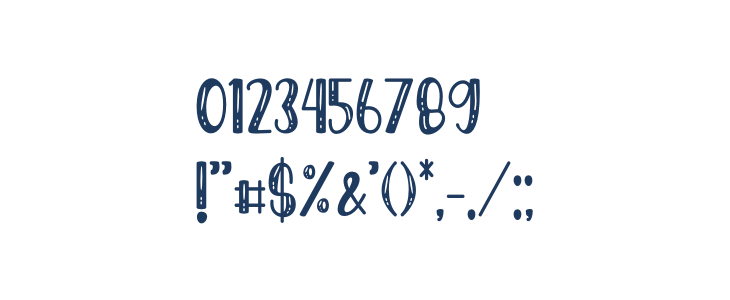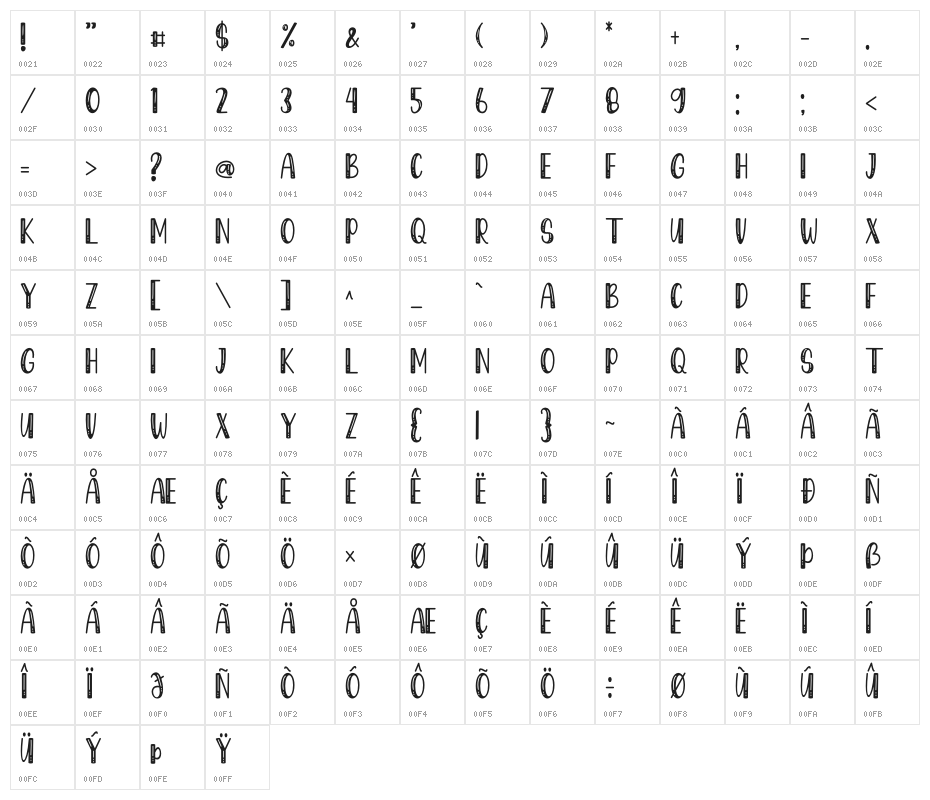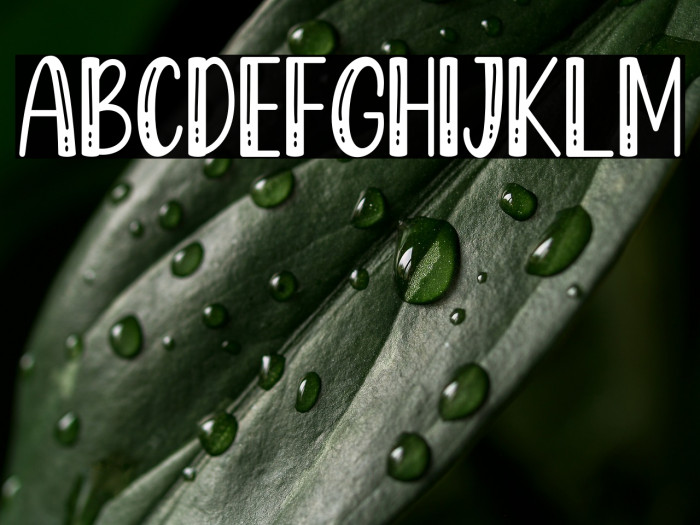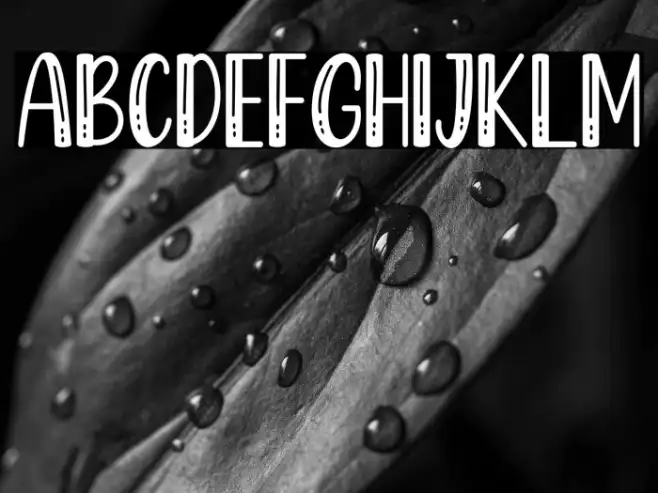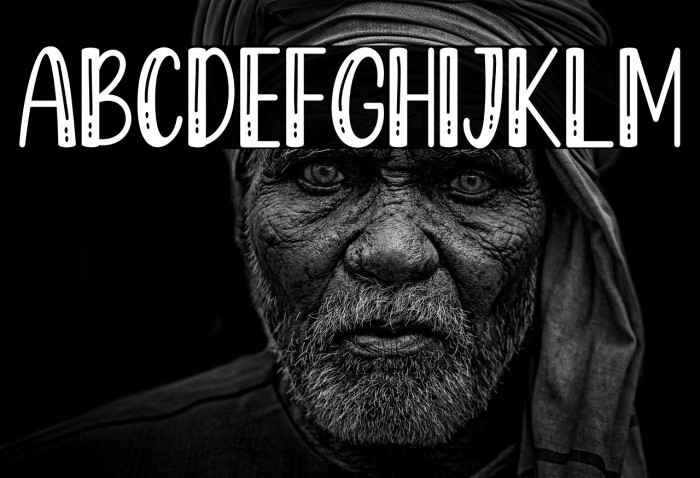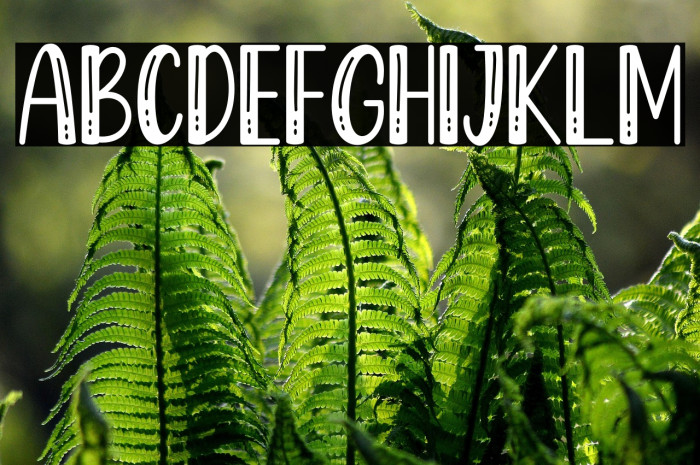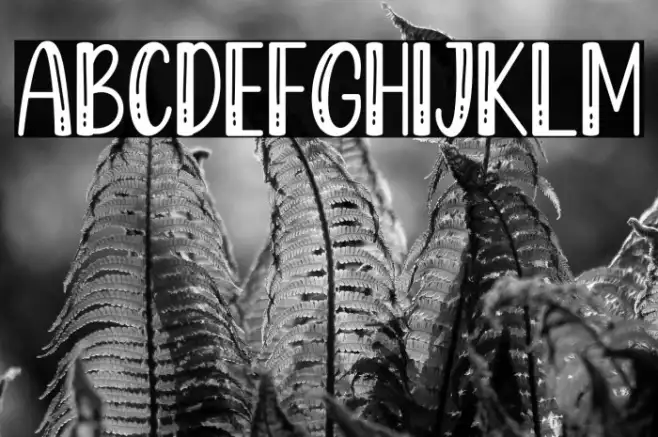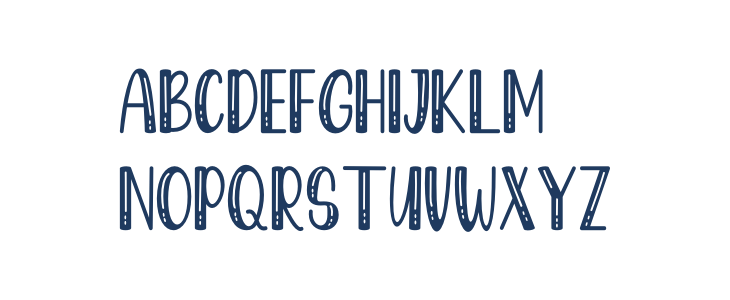
Mandalli Font
Mandalli Description
This playful and decorative font features bold, rounded characters with a unique dotted pattern inside each letter. The uppercase and lowercase letters maintain a consistent style, with a slight whimsical touch that adds character. The numbers and special characters follow the same design, making the font cohesive and visually appealing. Its bold strokes and decorative elements make it stand out, perfect for creative projects that require a fun and lively typeface.
| Proposed Projects | Ideal for children's books, party invitations, playful branding, and creative posters. |